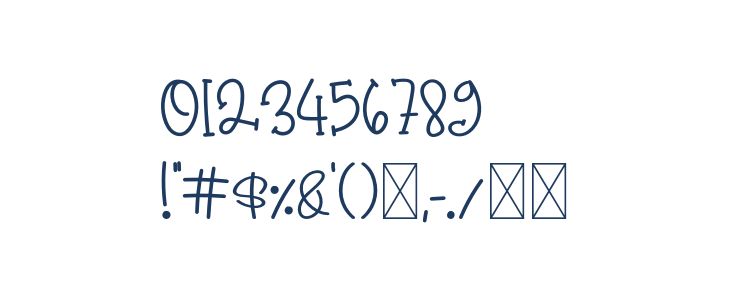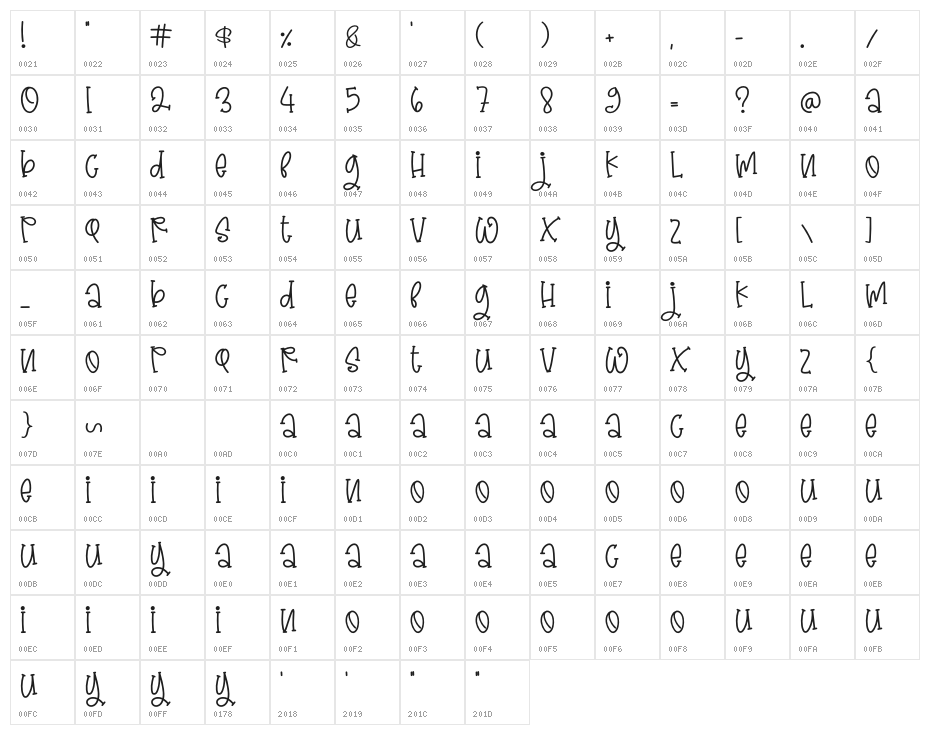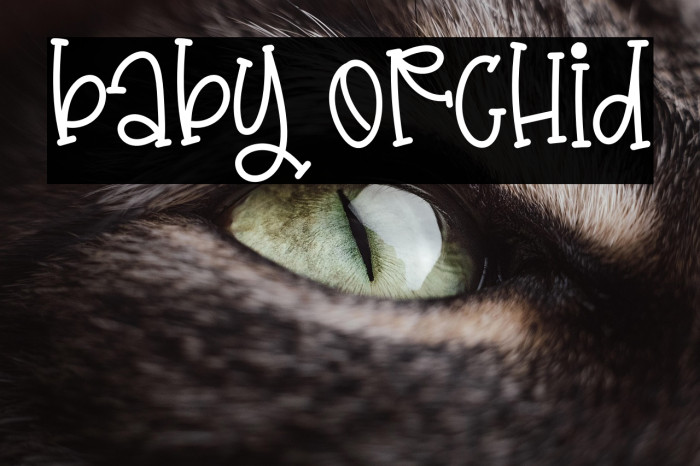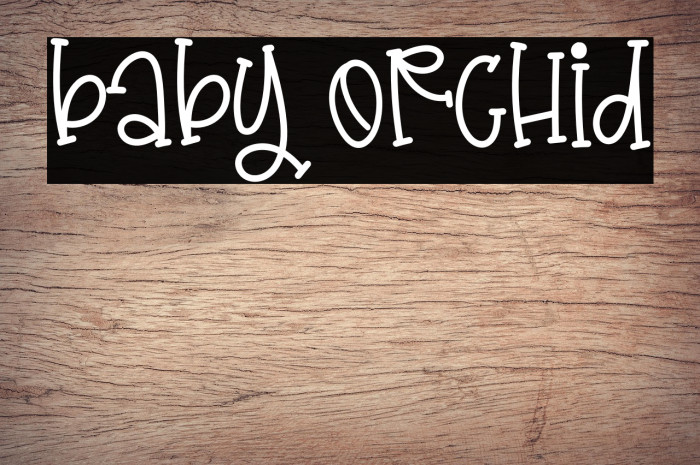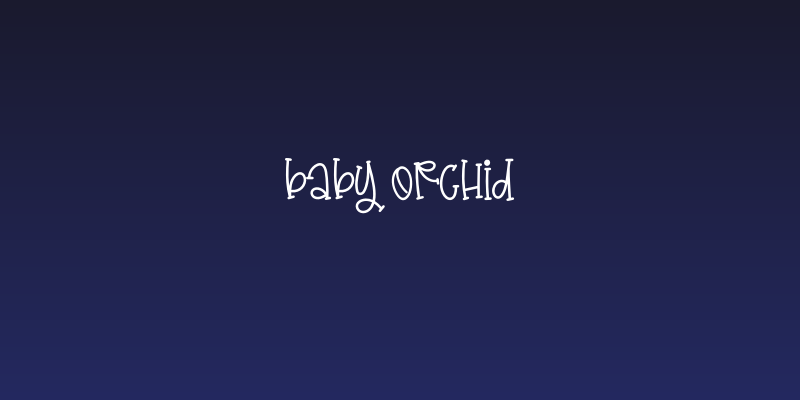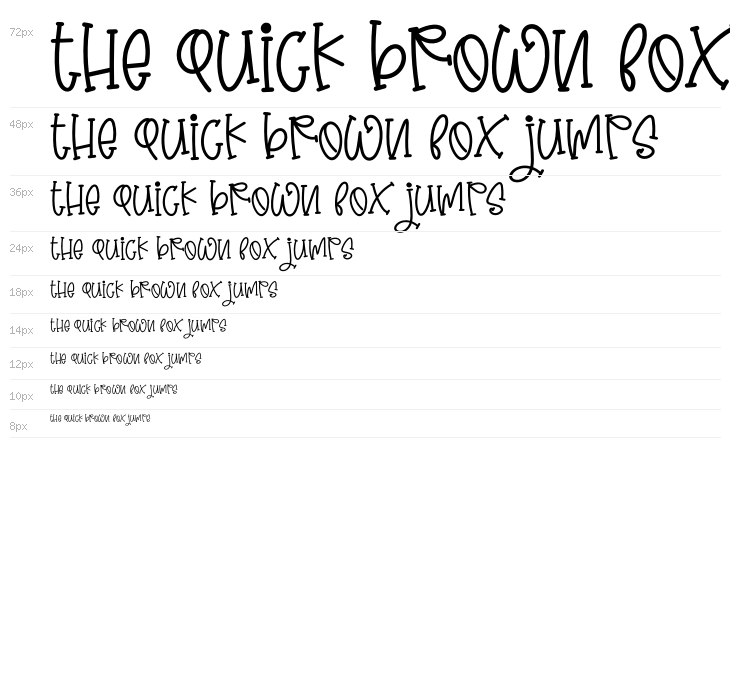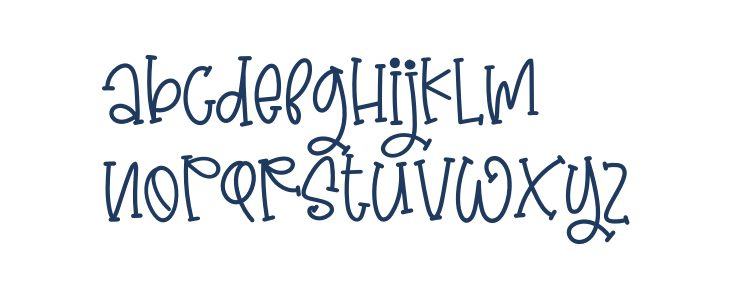
Baby Orchid Font
This playful and whimsical font features a handwritten style with a unique, quirky flair. Each character is crafted with a sense of fun and creativity, making it ideal for projects that require a touch of personality. The letters are slightly irregular, adding to the charm and informal feel of the design. The strokes are consistent in thickness, providing a balanced look that is easy to read while maintaining its distinctive character. The font includes a full set of uppercase and lowercase letters, numbers, and a variety of special characters, ensuring versatility for different design needs.
| Proposed Projects | Ideal for children's books, playful branding, greeting cards, and creative posters. |